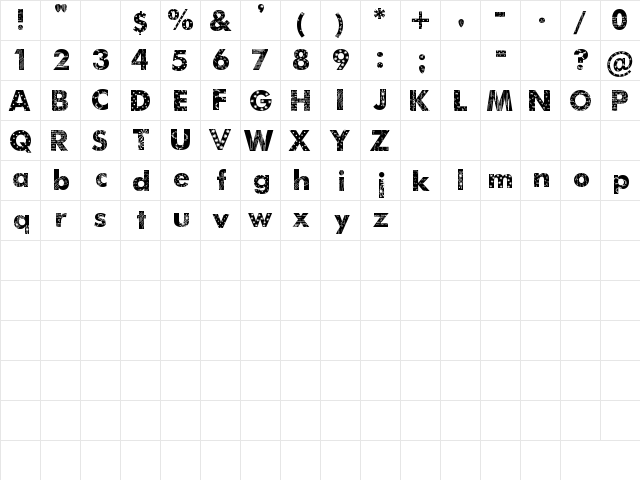
2Peas Class Act 2Peas Class Act
Design Context for 2Peas Class Act Typeface
2Peas Class Act is a composed and adaptable typeface that performs quietly and consistently across a wide range of design contexts.